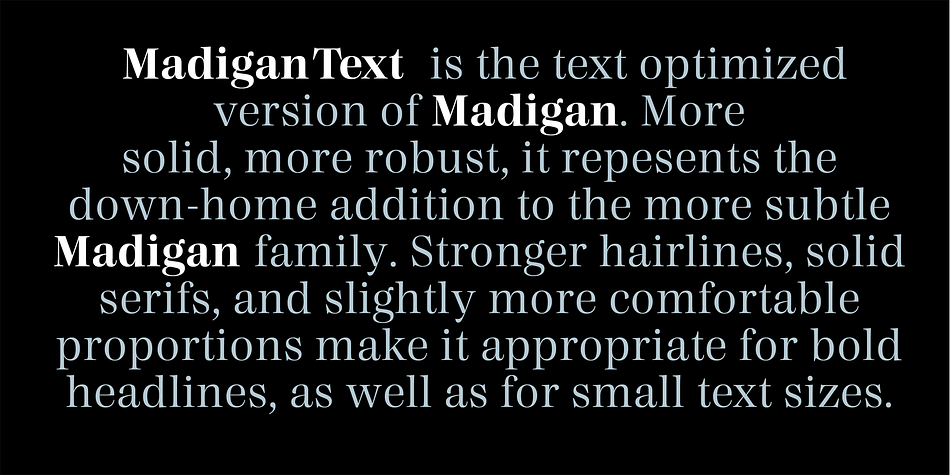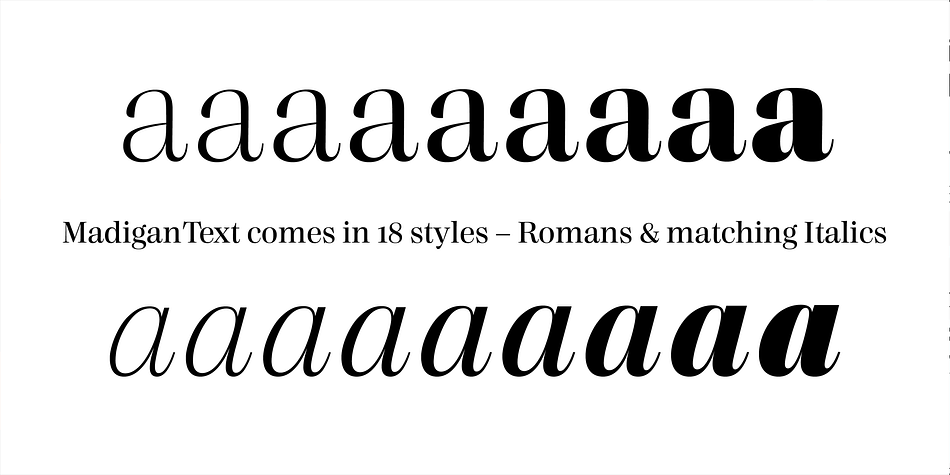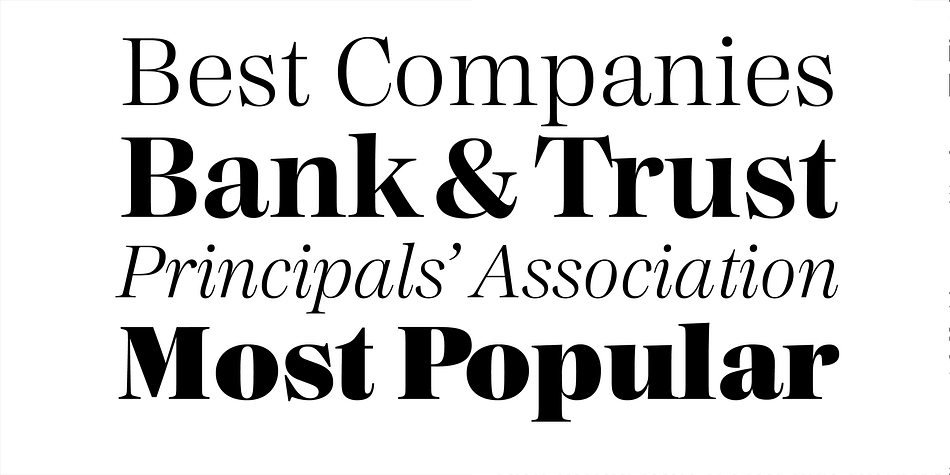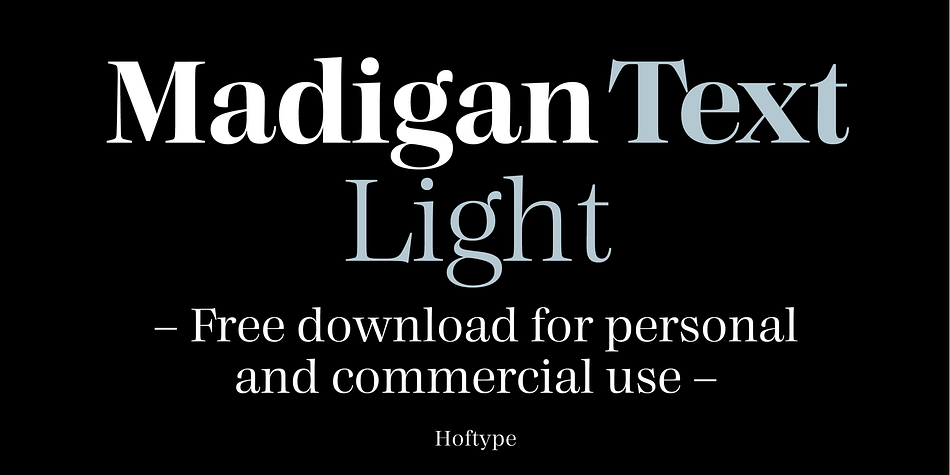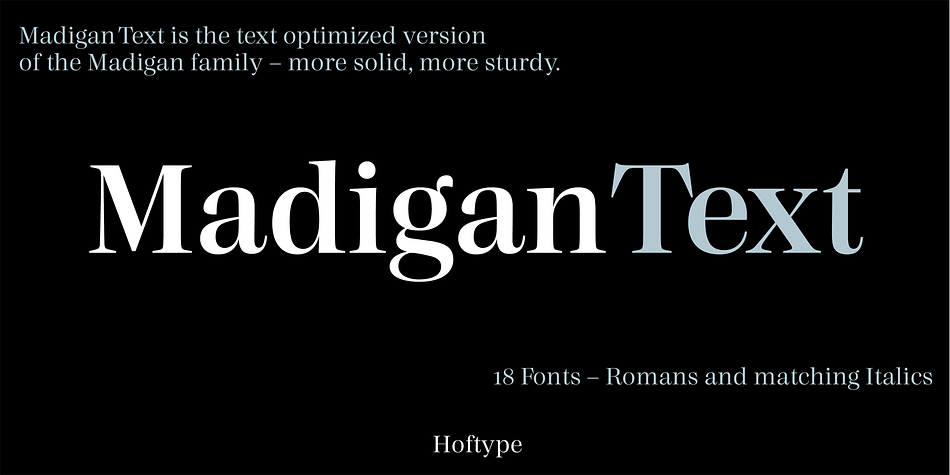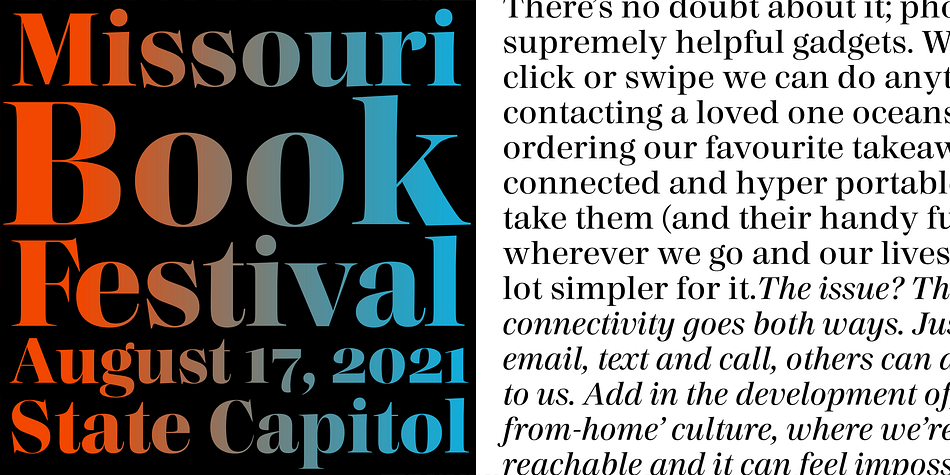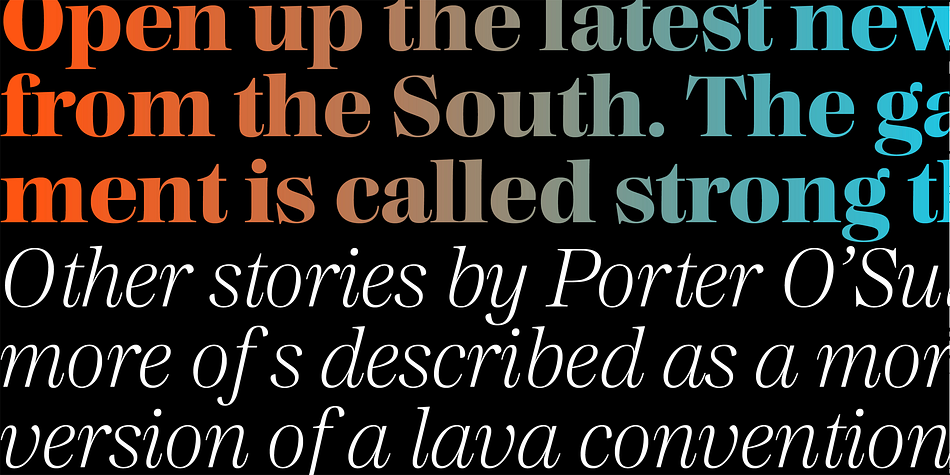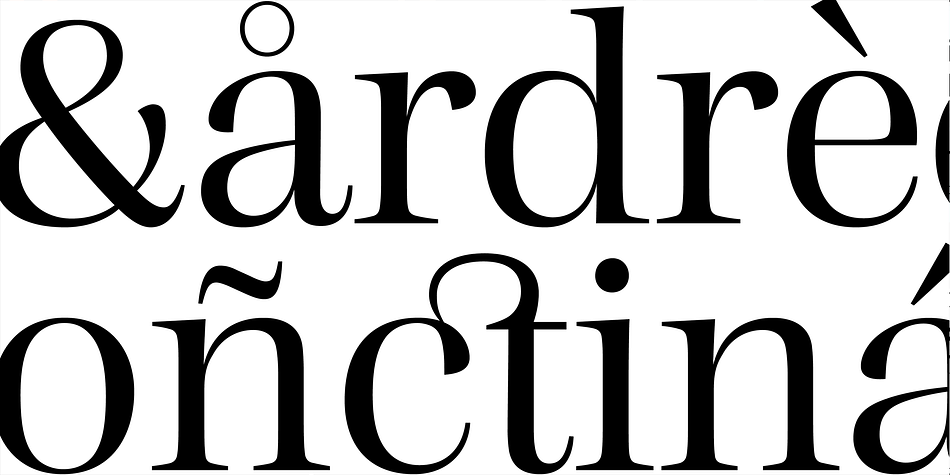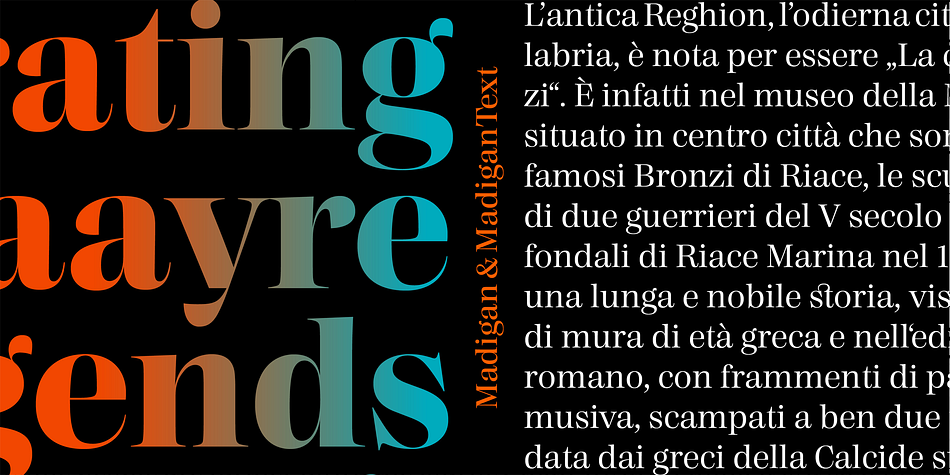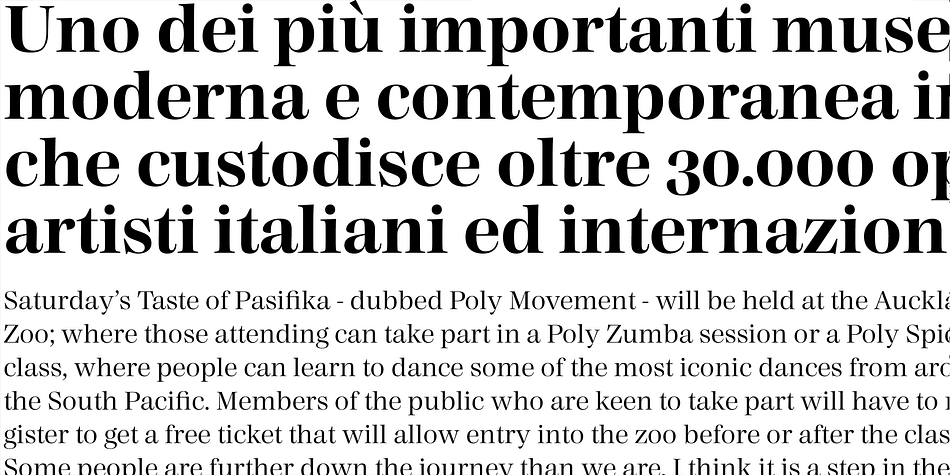
Madigan Text
Designed by Dieter Hofrichter, Madigan Text is a serif font family. This typeface has eighteen styles and was published by Hoftype.
Madigan Text is the text optimized version of the Madigan family.
More solid, more robust, it repesents the more stabil version
to the more delicate Contane family. Stronger hairlines, solid serifs,
and slightly wider proportions make it appropriate
for bold headlines, as well as for small text sizes.